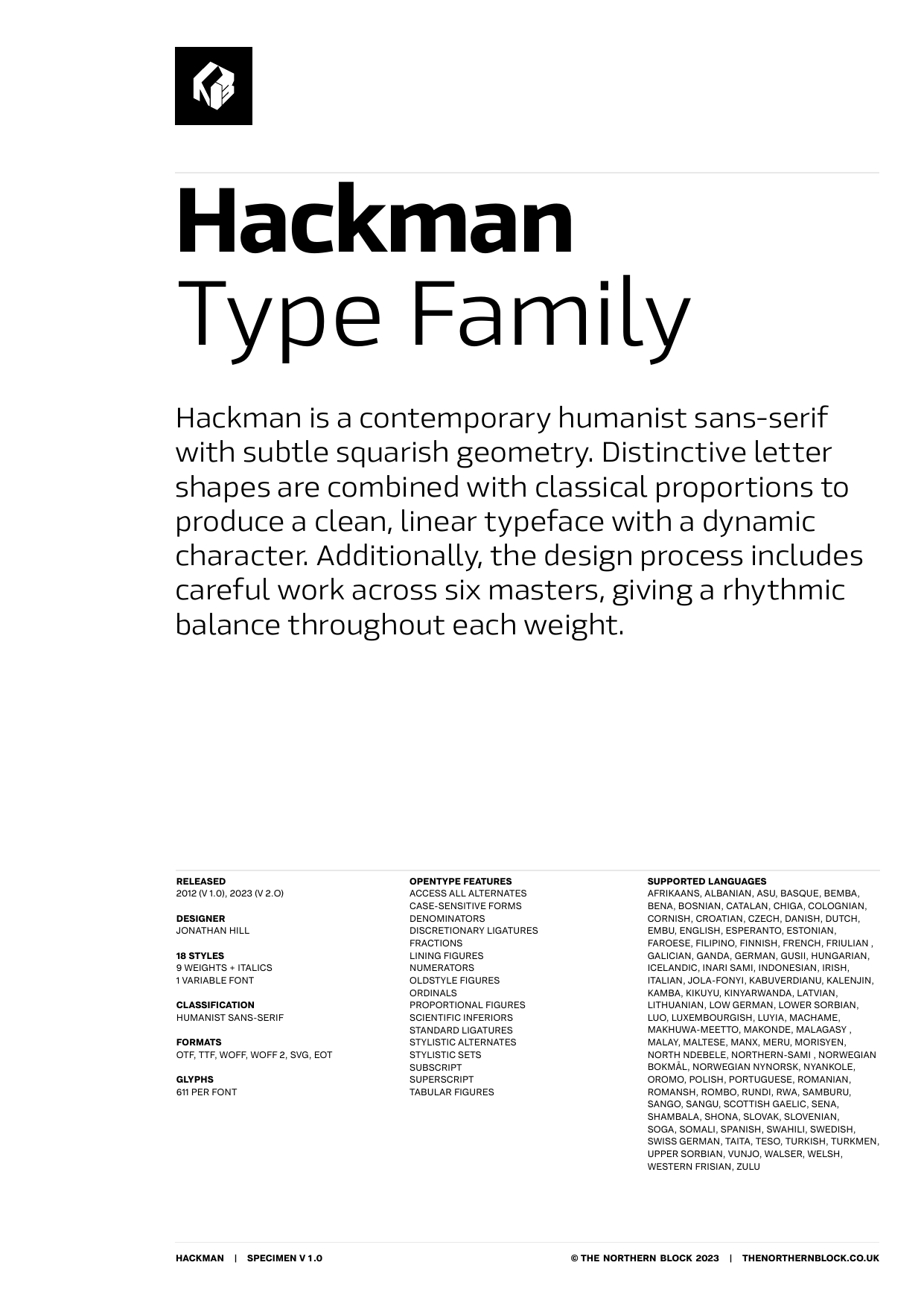
Hackman Collection
Hackman
Thin ExtraLight Light Book Regular Medium Bold ExtraBold Black Thin Italic ExtraLight Italic Book Italic Italic Medium Italic Bold Italic ExtraBold Italic Black ItalicHackman is a contemporary humanist sans-serif with subtle squarish geometry. Distinctive letter shapes are combined with classical proportions to produce a clean, linear typeface with a dynamic character. Additionally, the design process includes careful work across six masters, giving a rhythmic balance throughout each weight. Hackman was remastered to version 2.0 for improved OpenType features and usability across screen devices.
Details include nine weights and italics, over 600 characters with alternative lowercase a and e. OpenType features include six variations of numerals, numerators, denominators, superiors, inferiors, ligatures, and language support covering Western, Southern, and Central Europe.